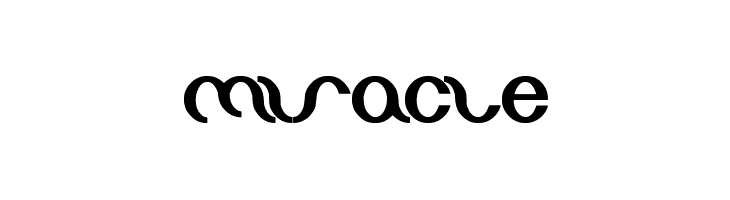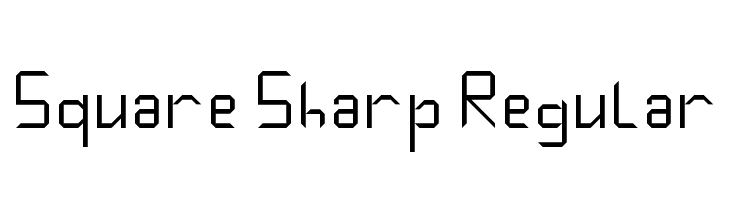
A bold, geometric font with a futuristic and industrial style.
A bold, geometric font with sharp angles and a modern look.
A dot matrix style font with a modern, digital aesthetic.
A bold, modern font with a handcrafted, playful style.
A modern, geometric font with bold, structured characters.
A playful, decorative font with rounded serifs and whimsical flourishes.
A decorative and intricate font with bold, interconnected loops and swirls.